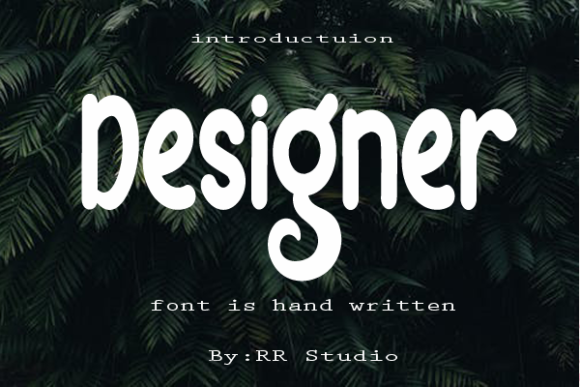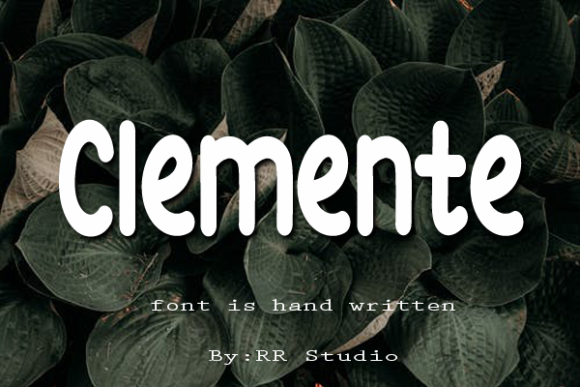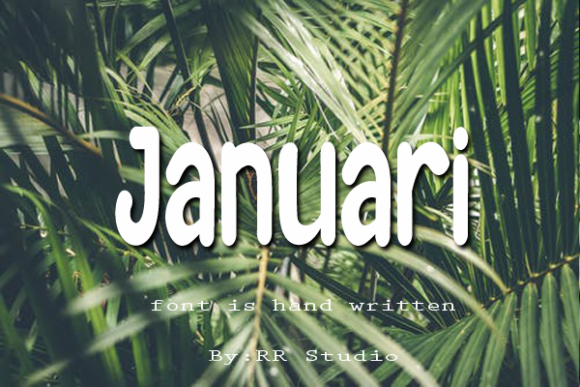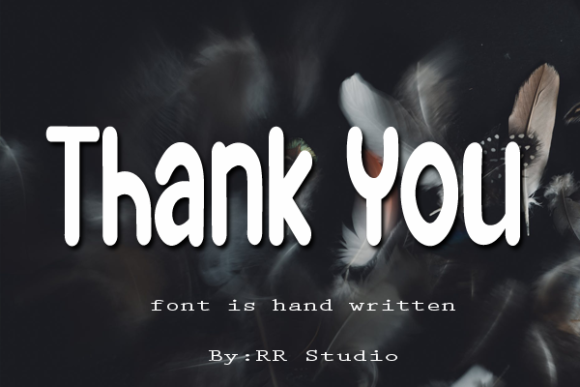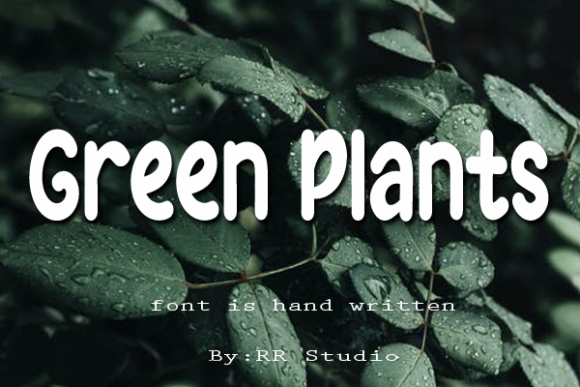
Designer Font
About Designer Font
Designer is a stylish and incredibly elegant handwritten font. It looks stunning on wedding invitations, thank you cards, quotes, greeting cards, logos, business cards and every other design which needs a handwritten touch.